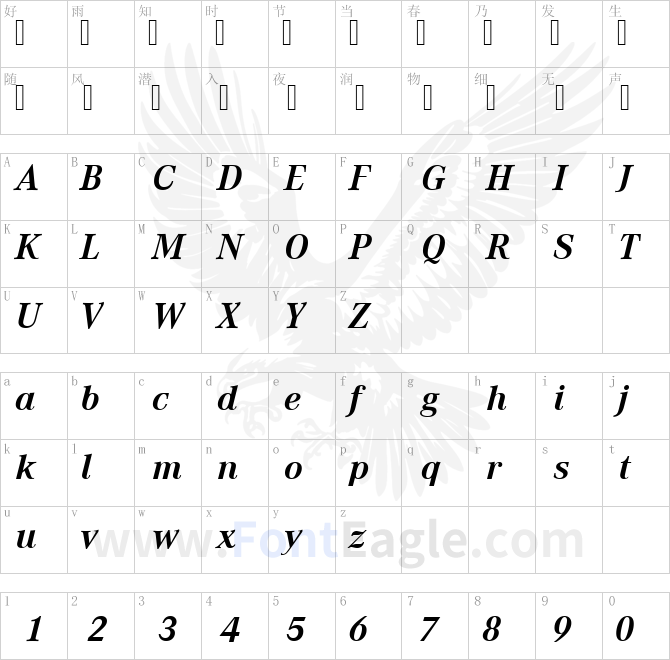
- Font name:CorpoALig
- Font Subfamily:Gras Italique
- Font Subfamily ID:URW:CorporateA-BoldItalic:1993
- Font Full Name:CorpoALig Gras Italique
- Font Version:Version 2.20
- Postscript:CorporateA-BoldItalic